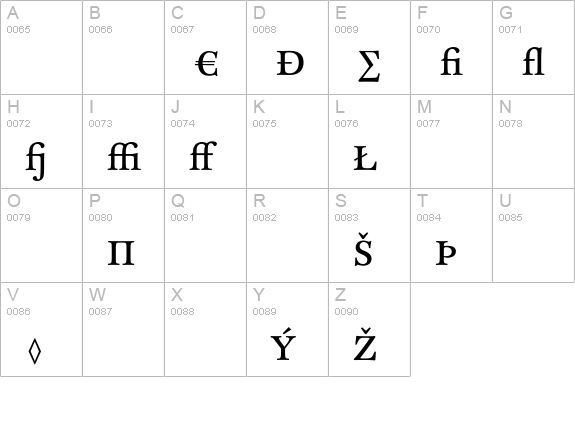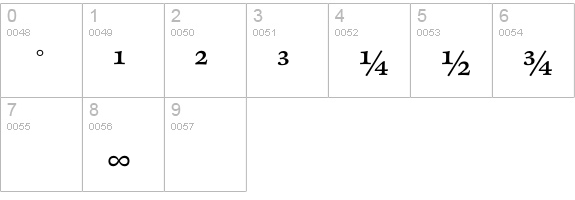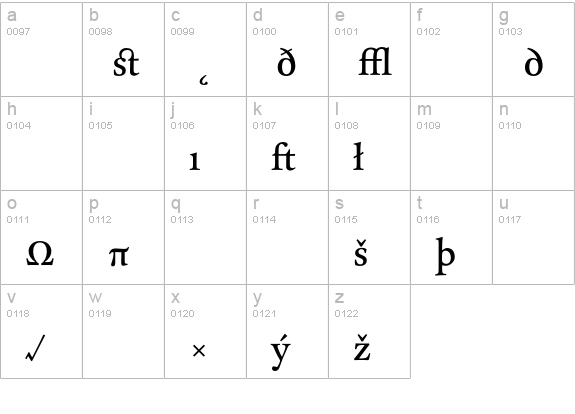
CliffordNine-RomanExpert Font Details
CliffordNine-RomanExpert font is a sophisticated and elegant typeface that exudes professionalism and class. With its clean lines and timeless design, this font is perfect for a wide range of projects, from branding to editorial design. The sharp serifs and balanced letterforms give CliffordNine-RomanExpert a sense of authority and refinement. What makes CliffordNine-RomanExpert even more appealing is that it is available for free download at FontsMarket.com. This means you can easily access this high-quality font and use it in your projects without any cost. Whether you're a designer looking to elevate your work or a business in need of a polished font for your branding, CliffordNine-RomanExpert is sure to impress. Download it today and add a touch of sophistication to your designs.